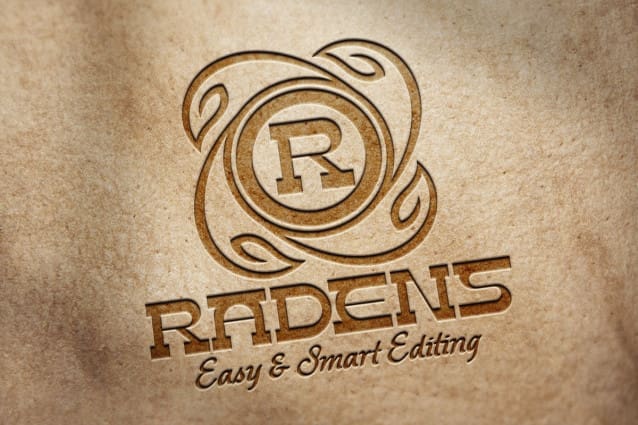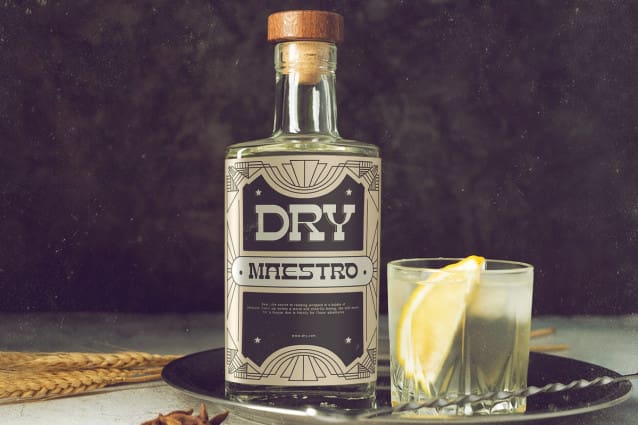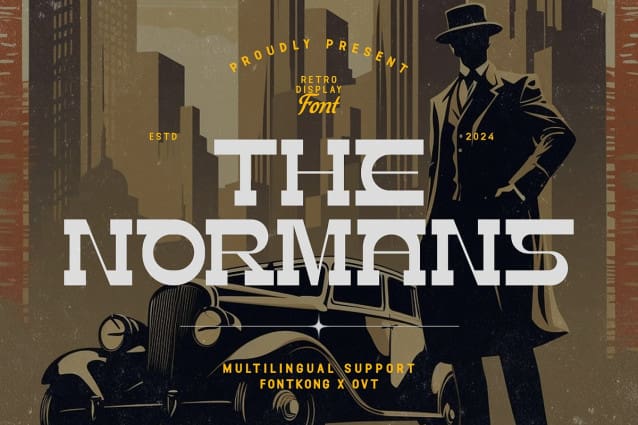
The Normans Font
The Normans Font, a retro display font that pays homage to the iconic styles of yesteryears. Inspired by the bold lettering of vintage signage and advertisements, TheNormans adds a touch of nostalgia and charm to any project.
Crafted with meticulous attention to detail, The Normans captures the essence of retro design with its bold lines and distinctive flair. Whether you’re creating posters, logos, or branding materials, this font brings a sense of timeless authenticity to your designs.
Featuring uppercase letters, numbers, and punctuation, TheNormans offers versatility and adaptability for a variety of creative endeavors. From 1950s diner menus to classic movie posters, let TheNormans transport your audience to a bygone era filled with retro charm.
Embrace the nostalgia and elevate your designs with the vintage vibes of The Normans.